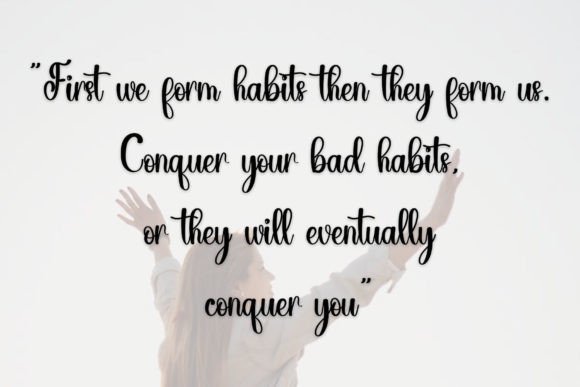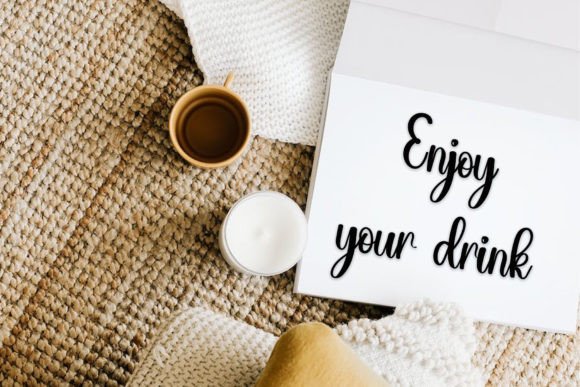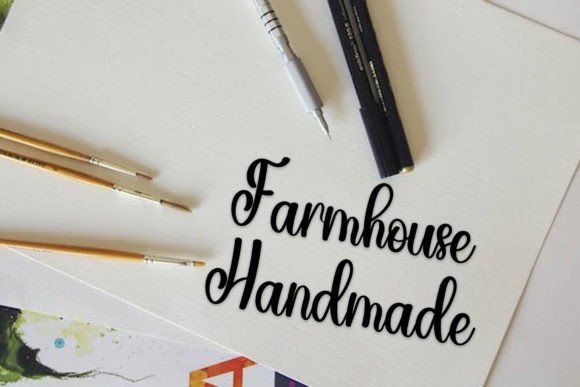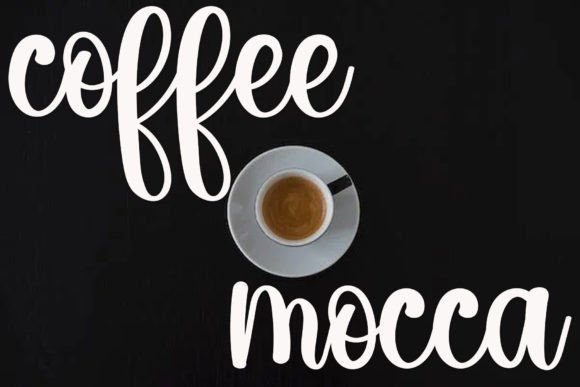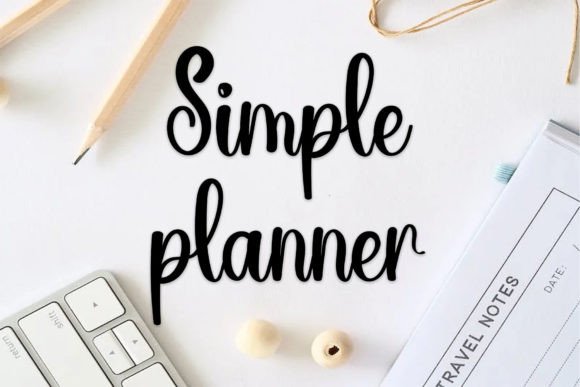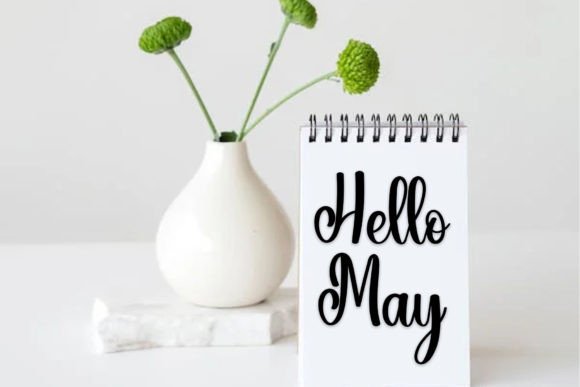
Discover the Elegance of Angelina Font: A Timeless Handwritten Script
Are you on the hunt for a font that exudes elegance, sophistication, and a touch of whimsy? Look no further than the Angelina Font, a stunning handwritten script that’s sure to capture your heart. With its incredibly distinct and timeless style, Angelina is the perfect addition to any design project, from crafting and DIY endeavors to professional branding and marketing materials.
What Makes Angelina Font So Special?
Angelina Font is described as a neat and beautiful handwritten font, characterized by an elegant touch that sets it apart from other scripts. Its unique blend of classic and modern elements makes it an incredibly versatile font, suitable for a wide range of applications. Whether you’re creating wedding invitations, crafting signs and banners, or designing social media graphics, Angelina Font is sure to make your project stand out.
The Benefits of Using Angelina Font
So, what makes Angelina Font so appealing to designers and crafters? Here are just a few benefits of using this gorgeous handwritten script:
- Elegant and sophisticated: Angelina Font boasts an undeniable air of elegance, making it perfect for projects that require a touch of refinement and poise.
- Timeless style: Unlike trendy fonts that quickly go out of style, Angelina Font’s classic design ensures it will remain a timeless choice for years to come.
- Versatile: From formal events to casual crafting projects, Angelina Font adapts seamlessly to any design brief.
- Easy to read: Despite its elegant script, Angelina Font remains highly legible, even at smaller sizes.
How to Use Angelina Font in Your Projects
Ready to fall in love with Angelina Font? Here are some ideas for incorporating this beautiful script into your designs:
- Wedding and event planning: Use Angelina Font to create stunning wedding invitations, save-the-dates, and event signage.
- Crafting and DIY: Add a touch of elegance to your crafting projects, such as handmade cards, gift tags, and scrapbooking pages.
- Branding and marketing: Incorporate Angelina Font into your brand identity, including logos, business cards, and social media graphics.
- Stationery and paper goods: Create beautiful stationery sets, journals, and notebooks featuring Angelina Font.
Tips for Pairing Angelina Font with Other Design Elements
To get the most out of Angelina Font, consider pairing it with complementary design elements. Here are a few suggestions:
- Minimalist backgrounds: Allow Angelina Font to take center stage by pairing it with simple, neutral backgrounds.
- Floral patterns: Combine Angelina Font with delicate floral patterns for a romantic, vintage-inspired look.
- Geometric shapes: Mix Angelina Font with geometric shapes, such as triangles or hexagons, for a modern and eclectic design.
In conclusion, Angelina Font is a truly special handwritten script that offers a unique blend of elegance, sophistication, and timeless style. Whether you’re a designer, crafter, or DIY enthusiast, this beautiful font is sure to inspire your next project. So why wait? Fall in love with Angelina Font and discover the perfect way to add a touch of refinement and whimsy to your designs.
- Angelina Font is a neat and beautiful handwritten font with an elegant touch.
- Its timeless style and versatility make it suitable for a wide range of design projects.
- Angelina Font is perfect for wedding and event planning, crafting and DIY, branding and marketing, and stationery and paper goods.
- Pair Angelina Font with minimalist backgrounds, floral patterns, or geometric shapes for stunning design combinations.